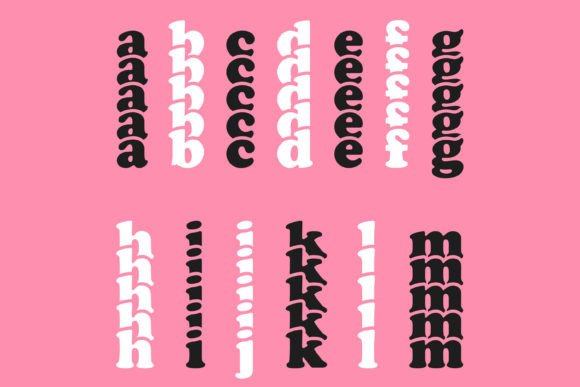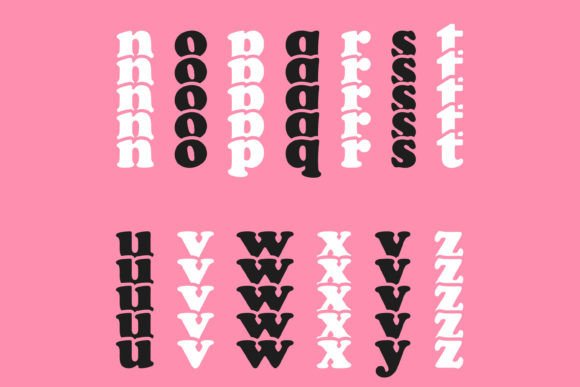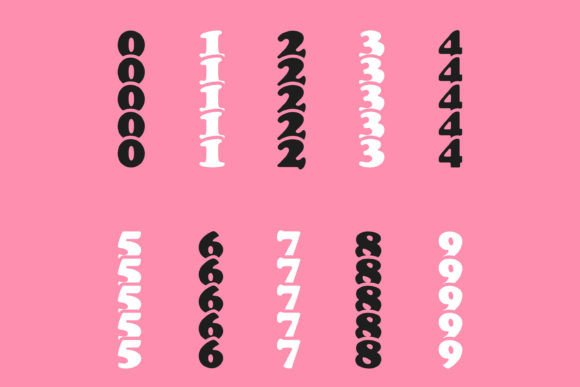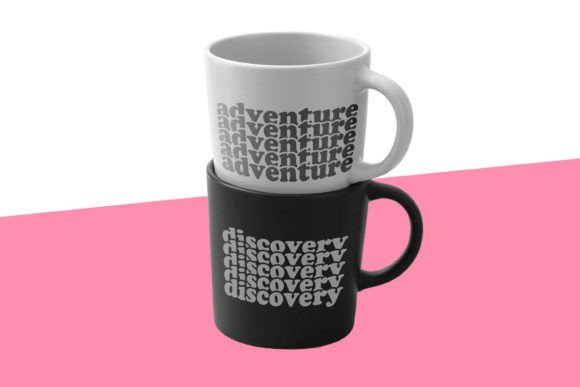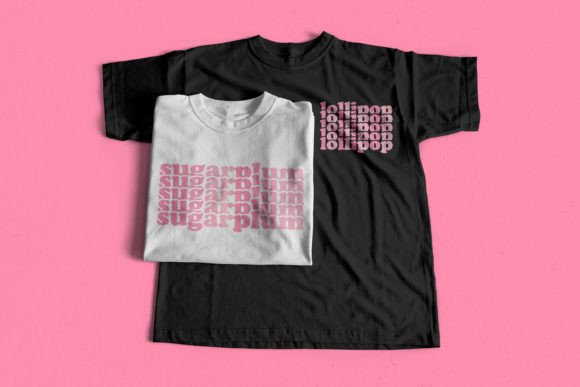
Introduction to Retrospect Font
Retrospect is an incredibly cool display font.
Whether you use it for custom designs, DIY crafts, or just any creation that requires a lovely touch, this font will be an amazing choice .
Key Features of Retrospect Font